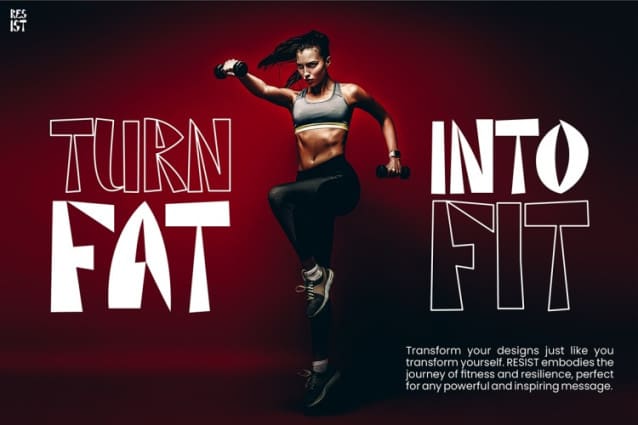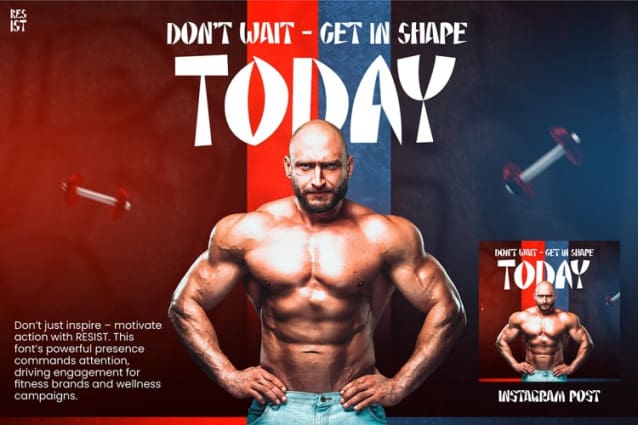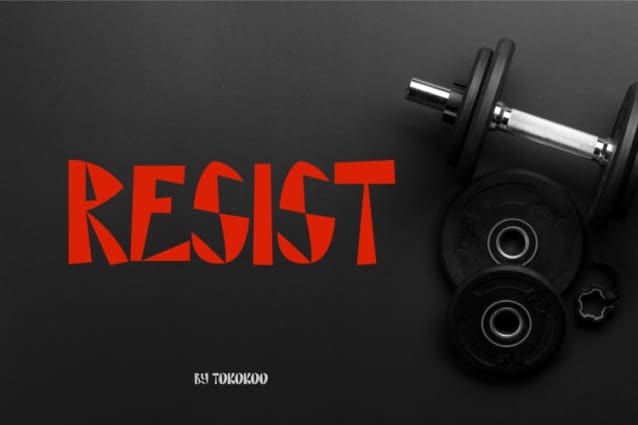
Resist Display Font
Resist Display Font is a dynamic and bold typeface that makes a powerful impression. Its sharp, angular design and fragmented structure exude strength, rebellion, and individuality. This font is designed to capture attention, making it perfect for projects that demand a strong, authoritative aesthetic. The geometric yet irregular shapes of each letter give it a unique, raw, and unpolished feel, adding a sense of defiance and boldness to any design.
Resist Display is more than just visually striking—it is highly versatile. Its strong lines and edgy style are ideal for both tattoo-inspired designs and modern branding. Whether you’re creating logos, posters, or apparel, this font ensures your message is loud and clear. Its bold character is particularly suitable for designs that evoke strength, resilience, and determination, making it the ultimate choice for high-impact visuals.